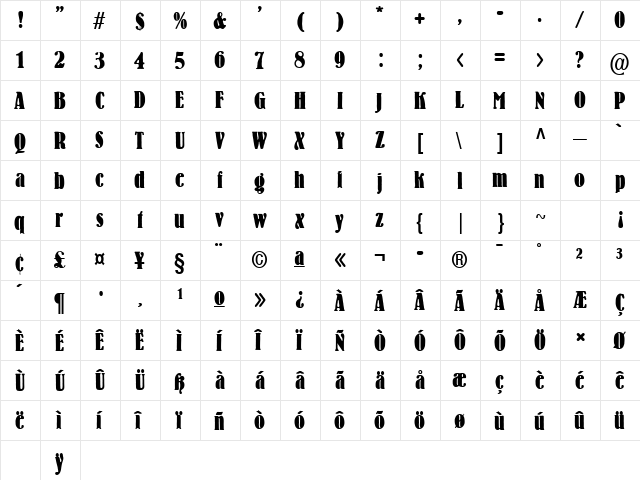
BernhardCondensed DB Regular
Design Context for BernhardCondensed DB Typeface
BernhardCondensed DB is a composed and adaptable typeface that performs quietly and consistently across a wide range of design contexts. The condensed width makes it efficient for tight spaces without sacrificing legibility.